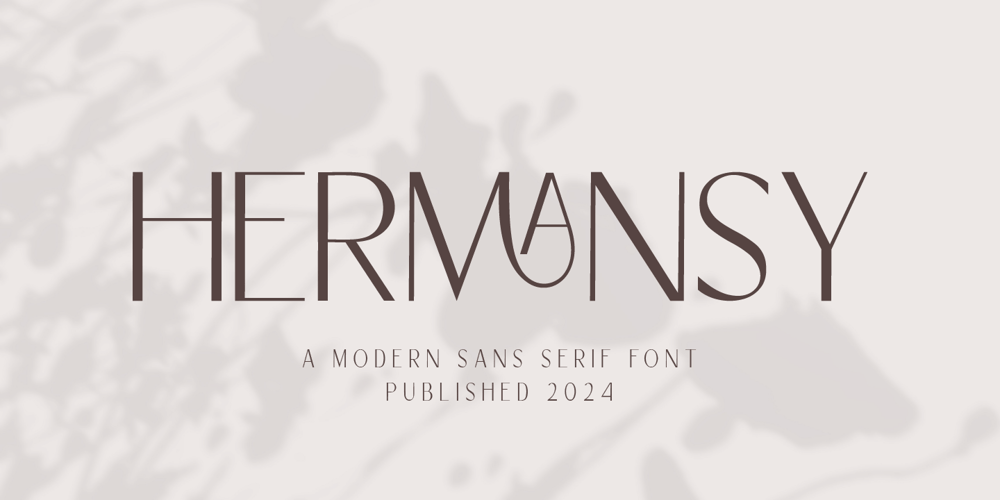
Hermansy Font Family was designed by Hayinah and published by Rockboys Studio. Hermansy contains 1 styles and family package options. Hermansy is a modern, sans serif font. It can easily be matched to an incredibly large set of projects, so add it to your creative ideas and notice how it makes them stand out!